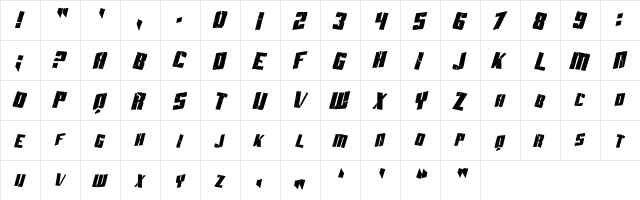
SF Aftershock Debris Condensed Italic Font Preview
Design Context for SF Aftershock Debris Condensed Typeface
SF Aftershock Debris Condensed is a composed and adaptable typeface that performs quietly and consistently across a wide range of design contexts. The dynamic lean of this cut emphasises speed and emphasis in any layout. Its narrow stance lets it pack a punch even in space-constrained designs.
Pro Tip: Try SF Aftershock Debris Condensed for annotation and caption copy alongside an upright companion — the contrast in angle creates a dynamic but ordered typographic system.